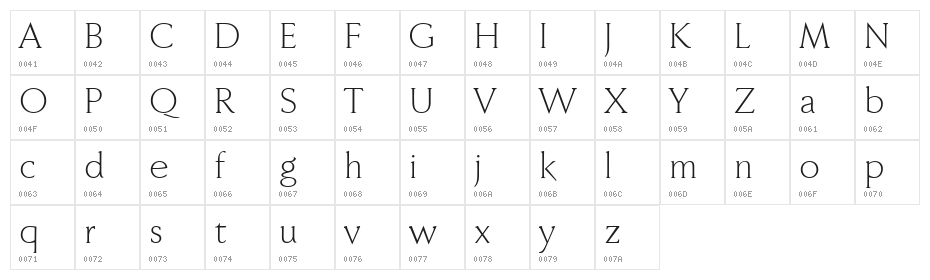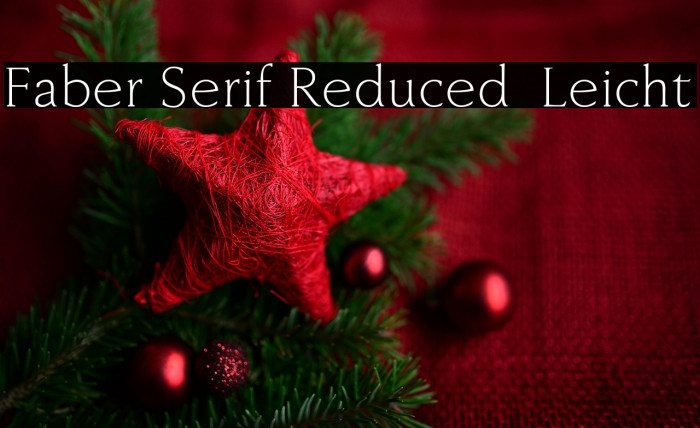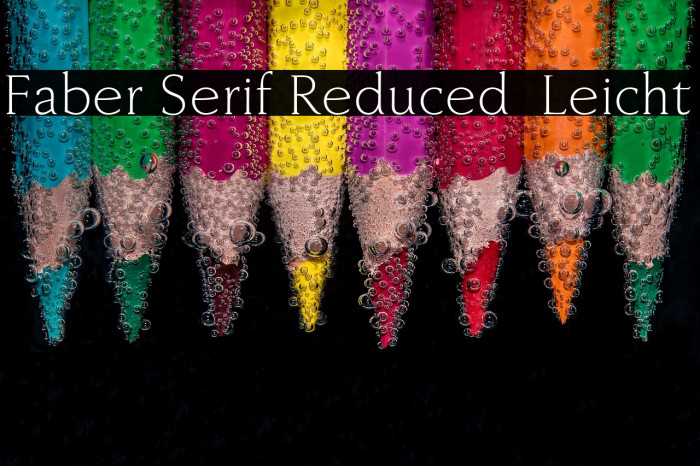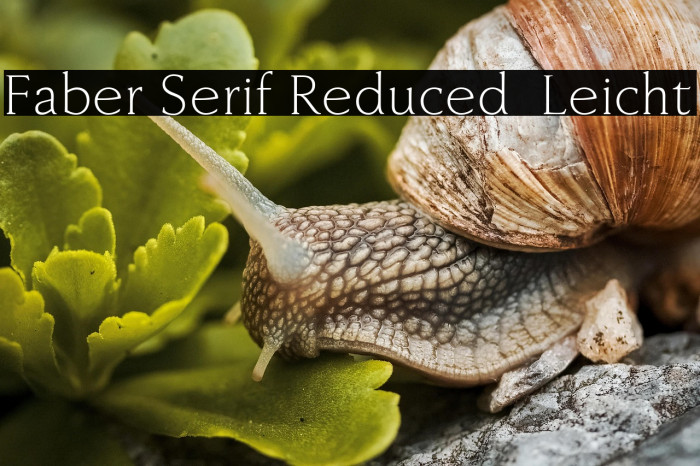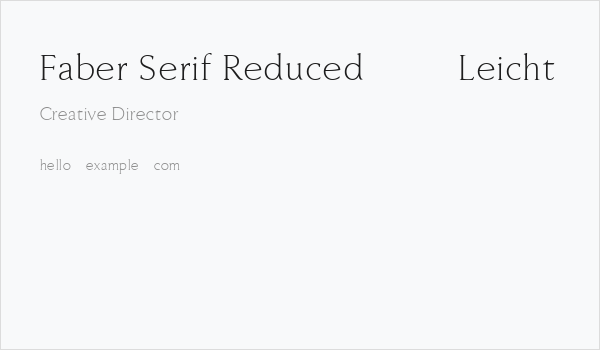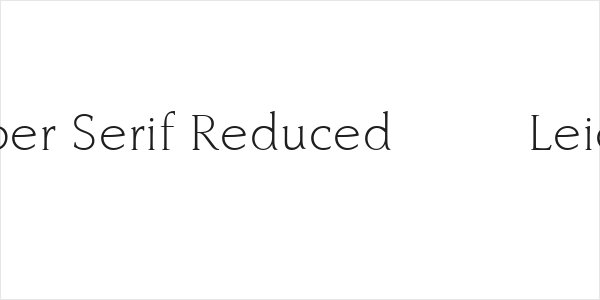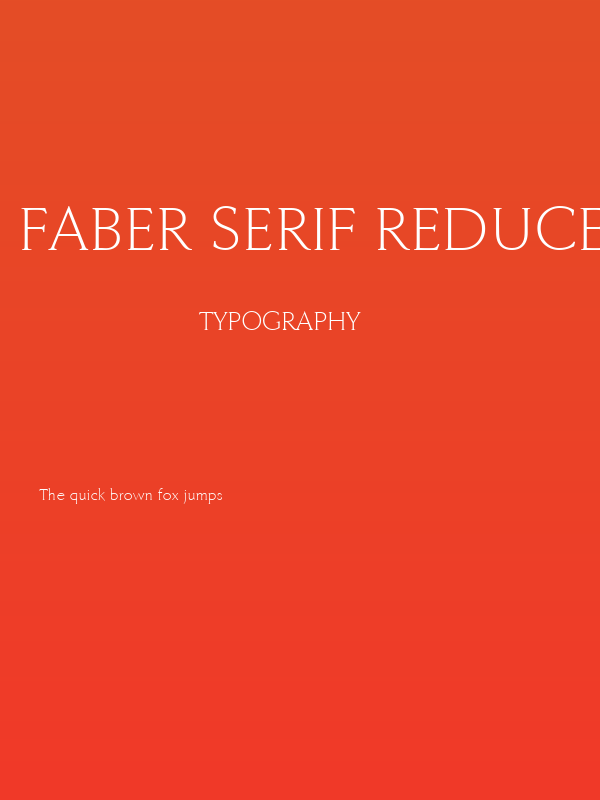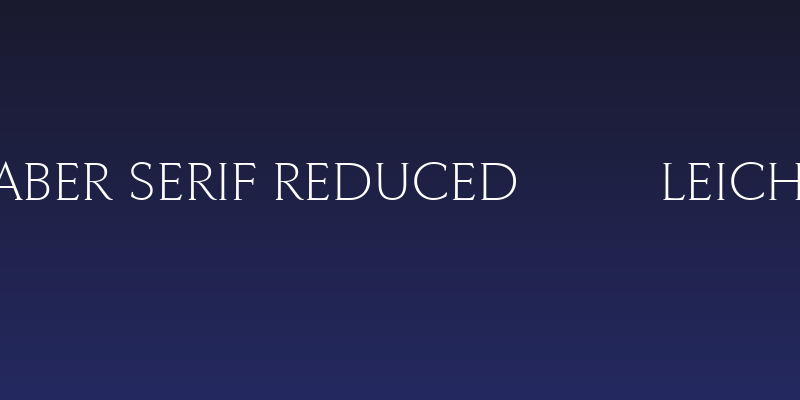
Faber Serif Reduced 45 Leicht Font
Faber Serif Reduced 45 Leicht Description
This font features a classic serif design with elegant, thin strokes and subtle curves, giving it a sophisticated and timeless appearance. The uppercase letters are tall and stately, while the lowercase letters maintain a consistent height, contributing to a harmonious flow. The serifs are pronounced yet refined, adding a touch of formality. The overall design is clean and legible, making it suitable for a variety of applications. The spacing between characters is balanced, ensuring readability without compromising on style. The font's contrast is medium, with a noticeable difference between thick and thin strokes, enhancing its visual appeal.
Overall StyleClassic
Proposed ProjectsIdeal for editorial design, book covers, formal invitations, and branding projects that require a touch of elegance.